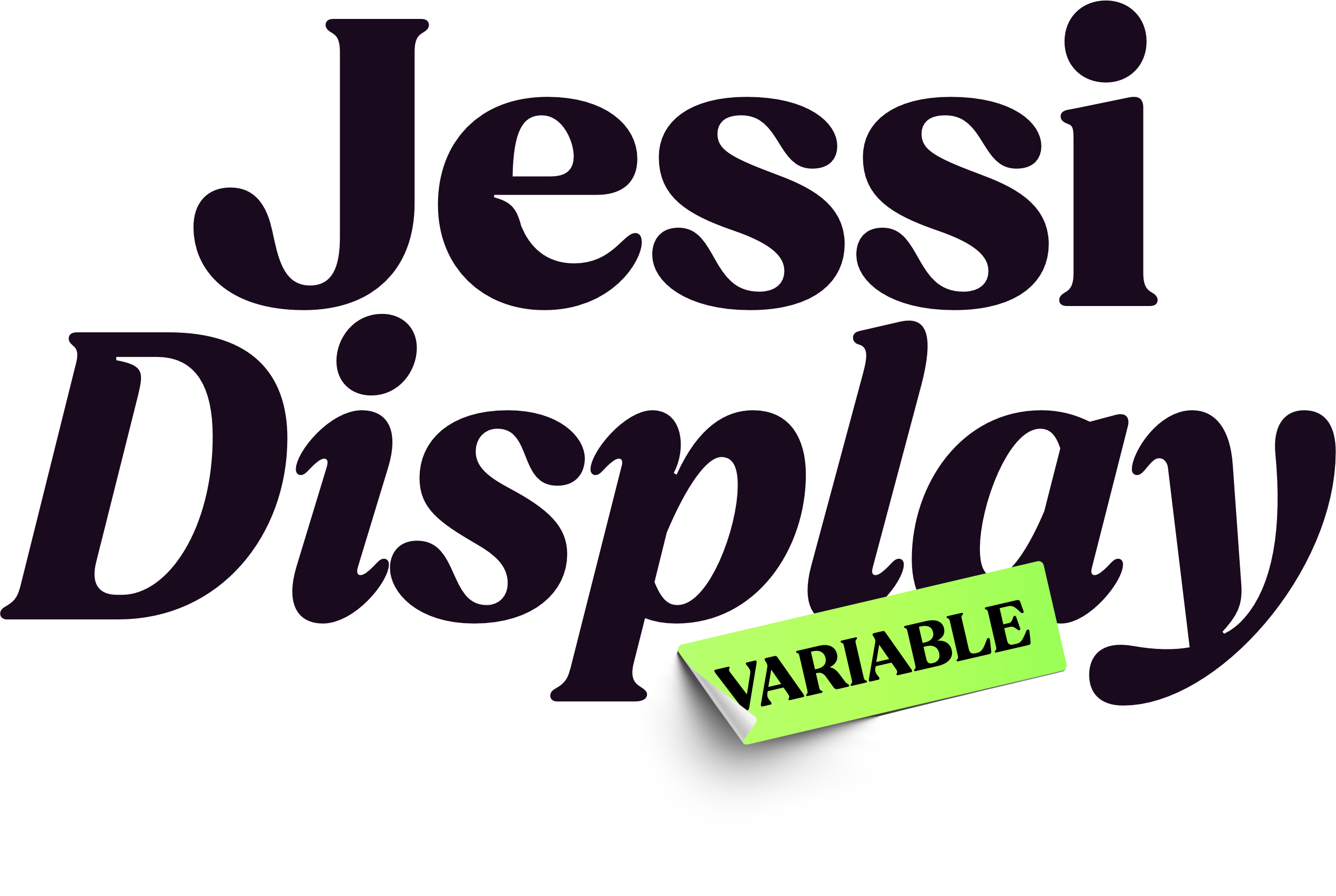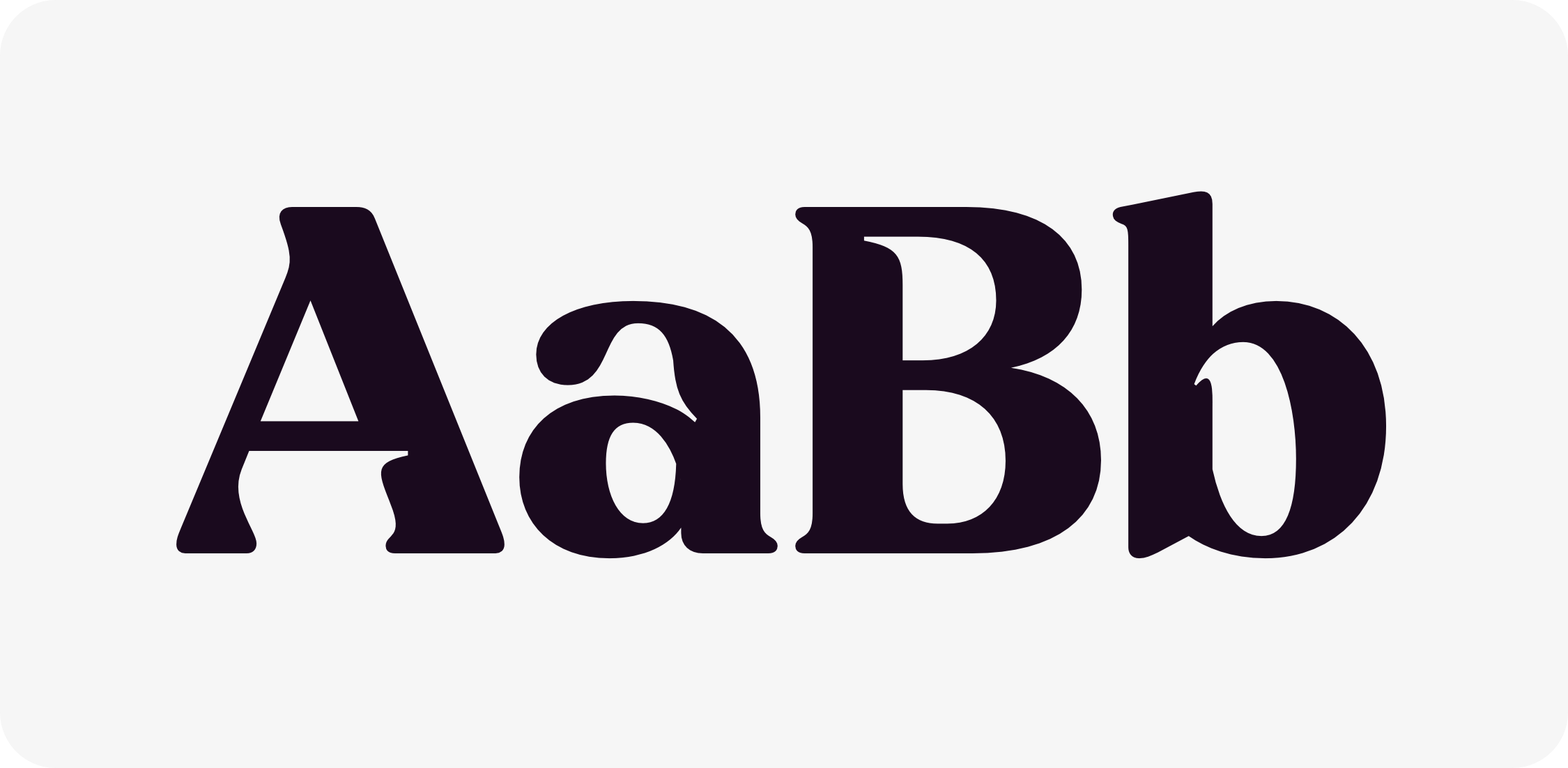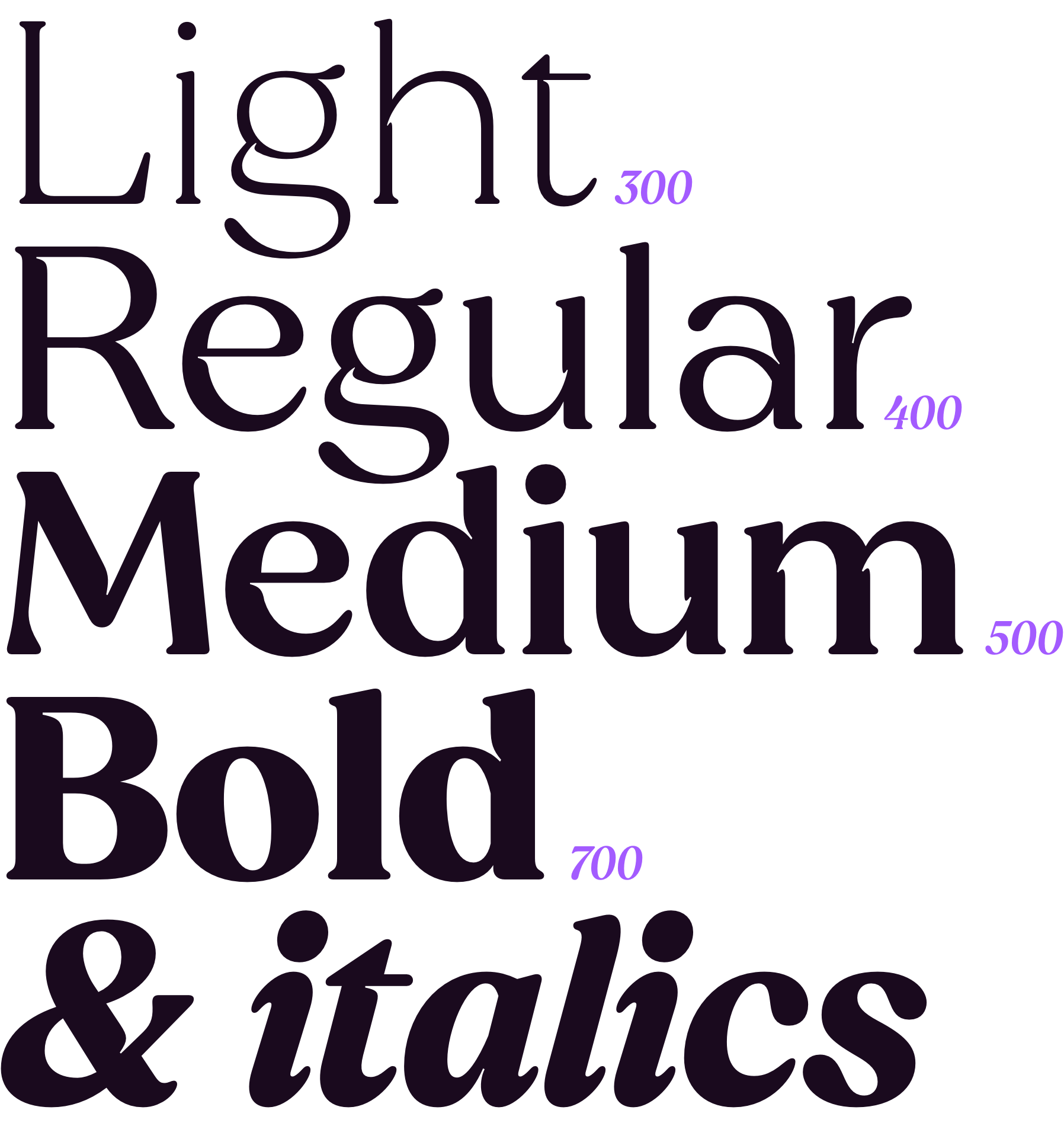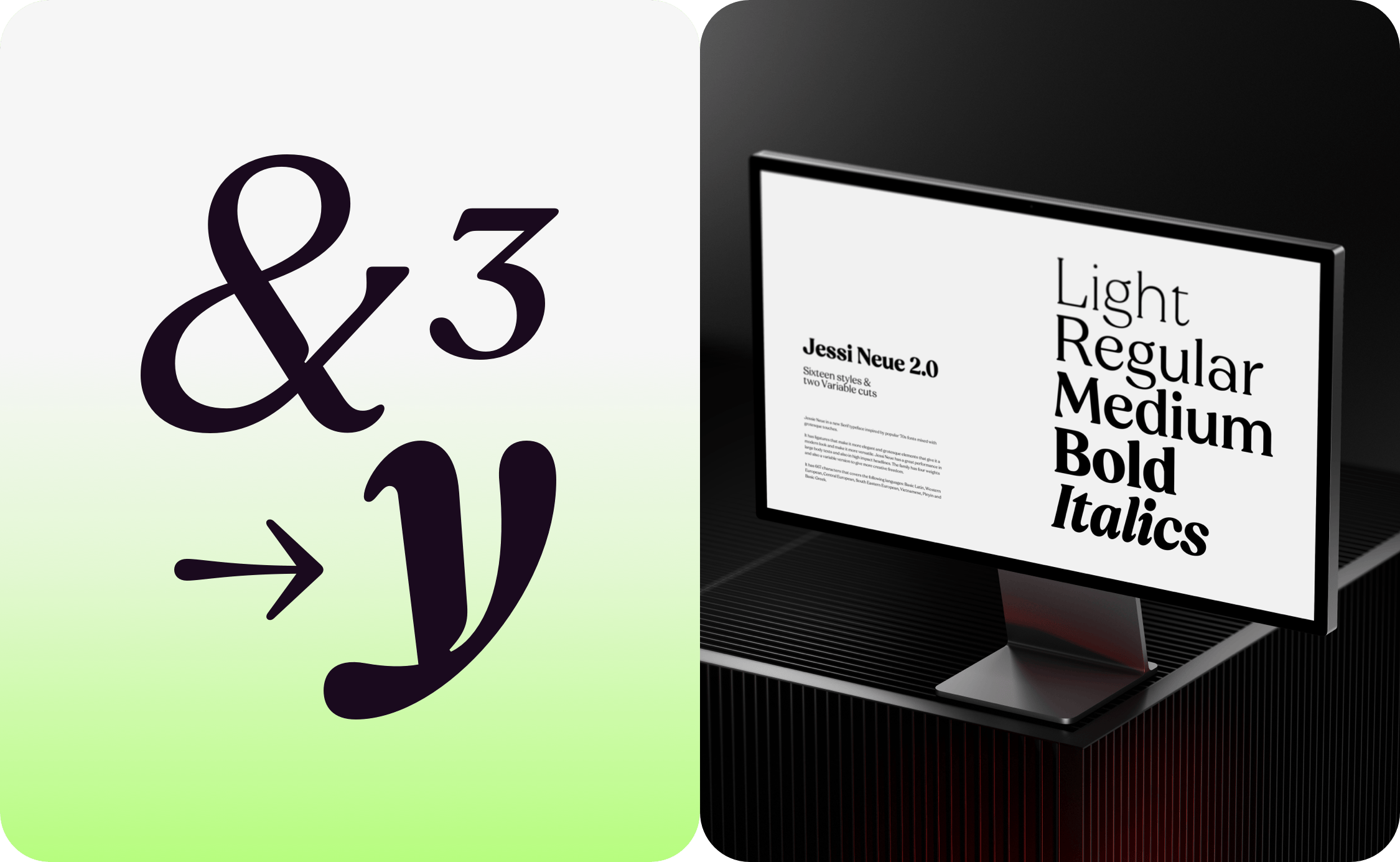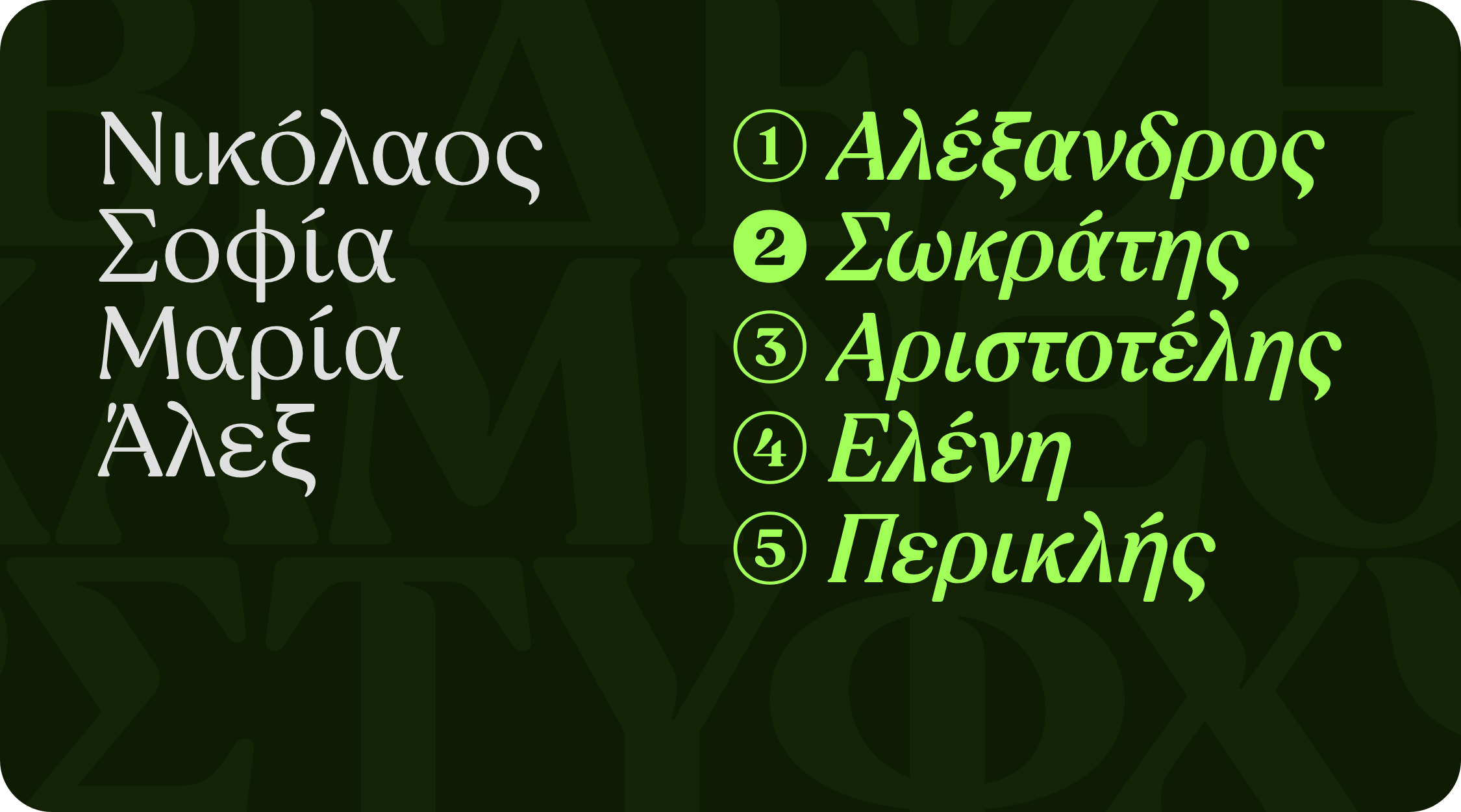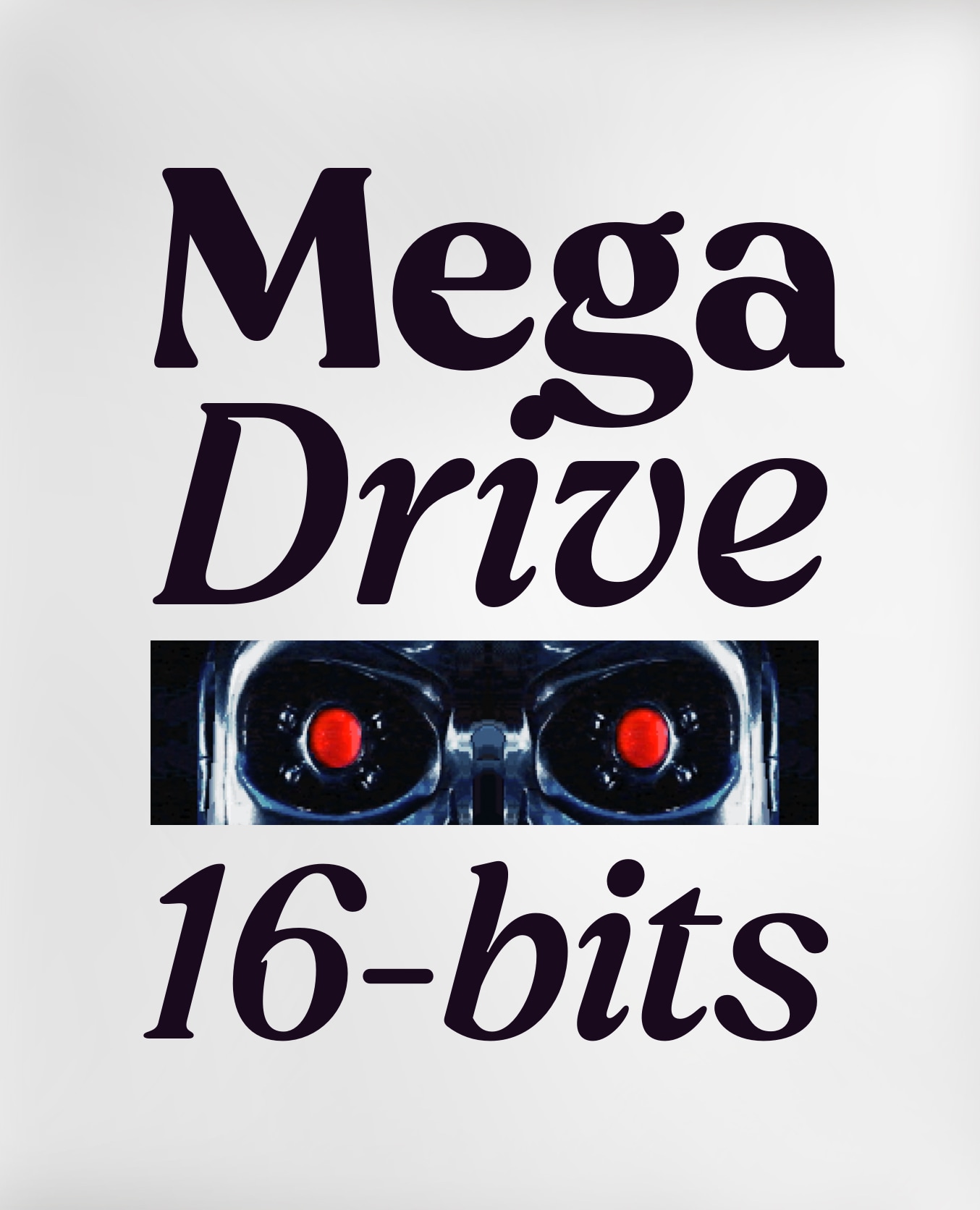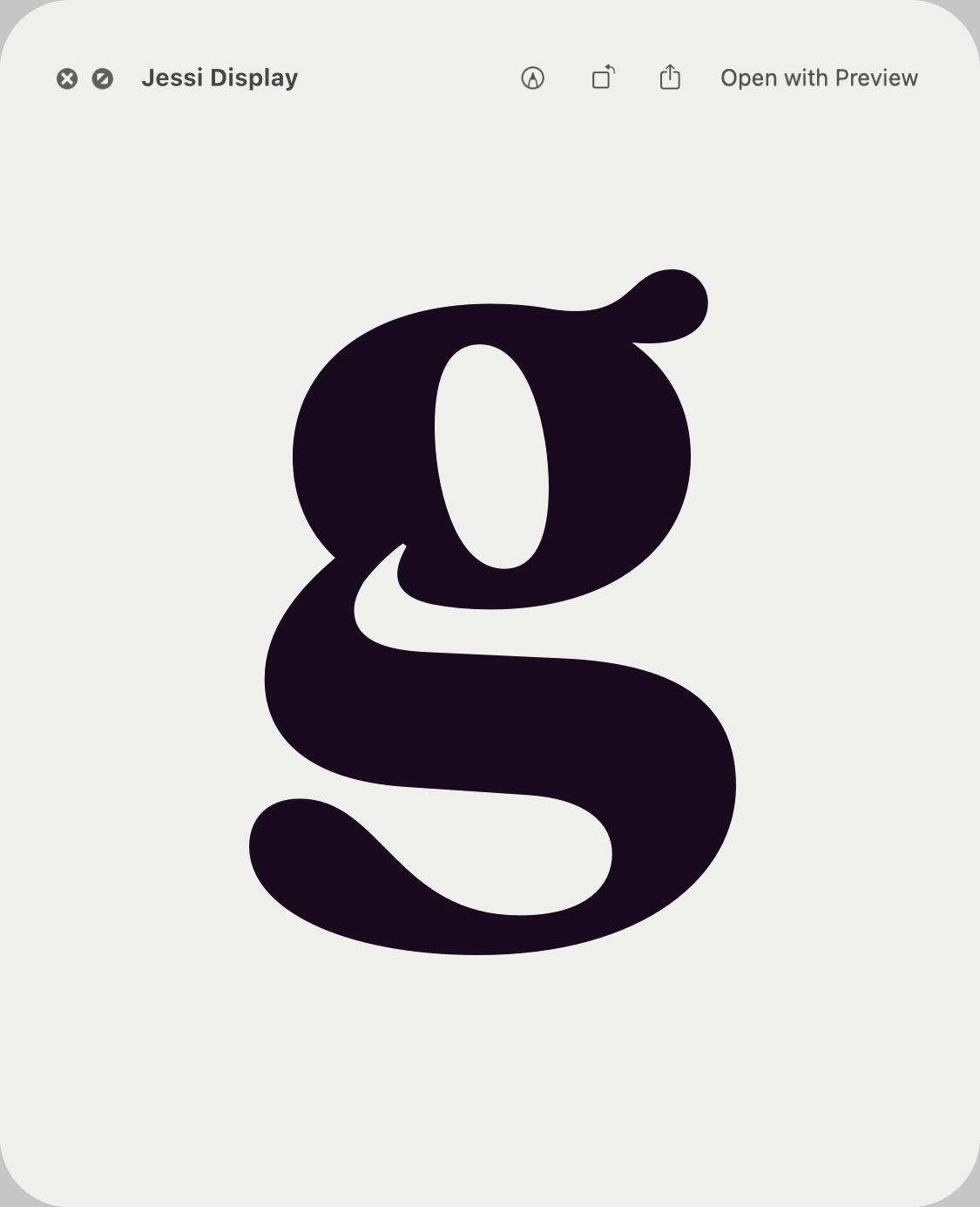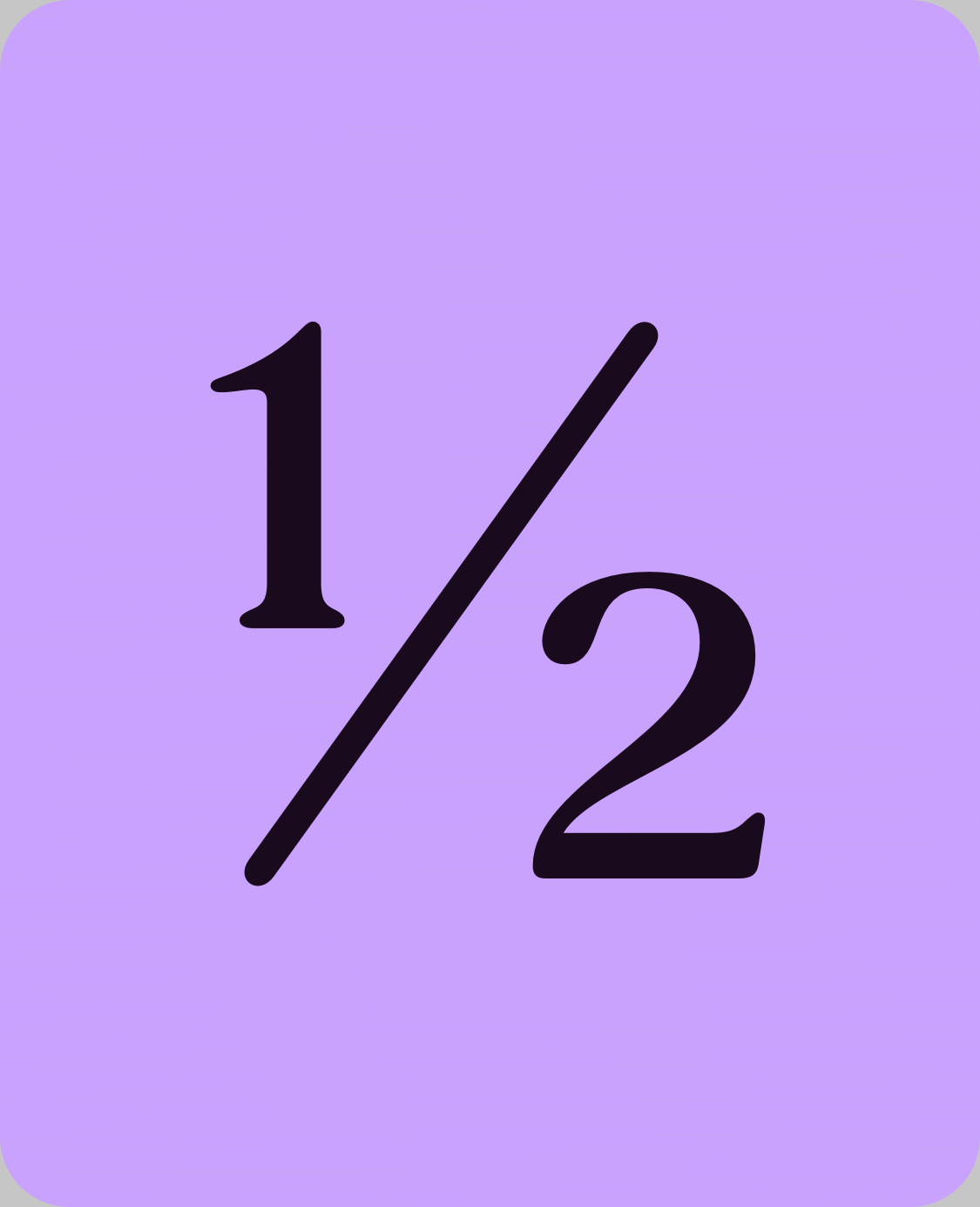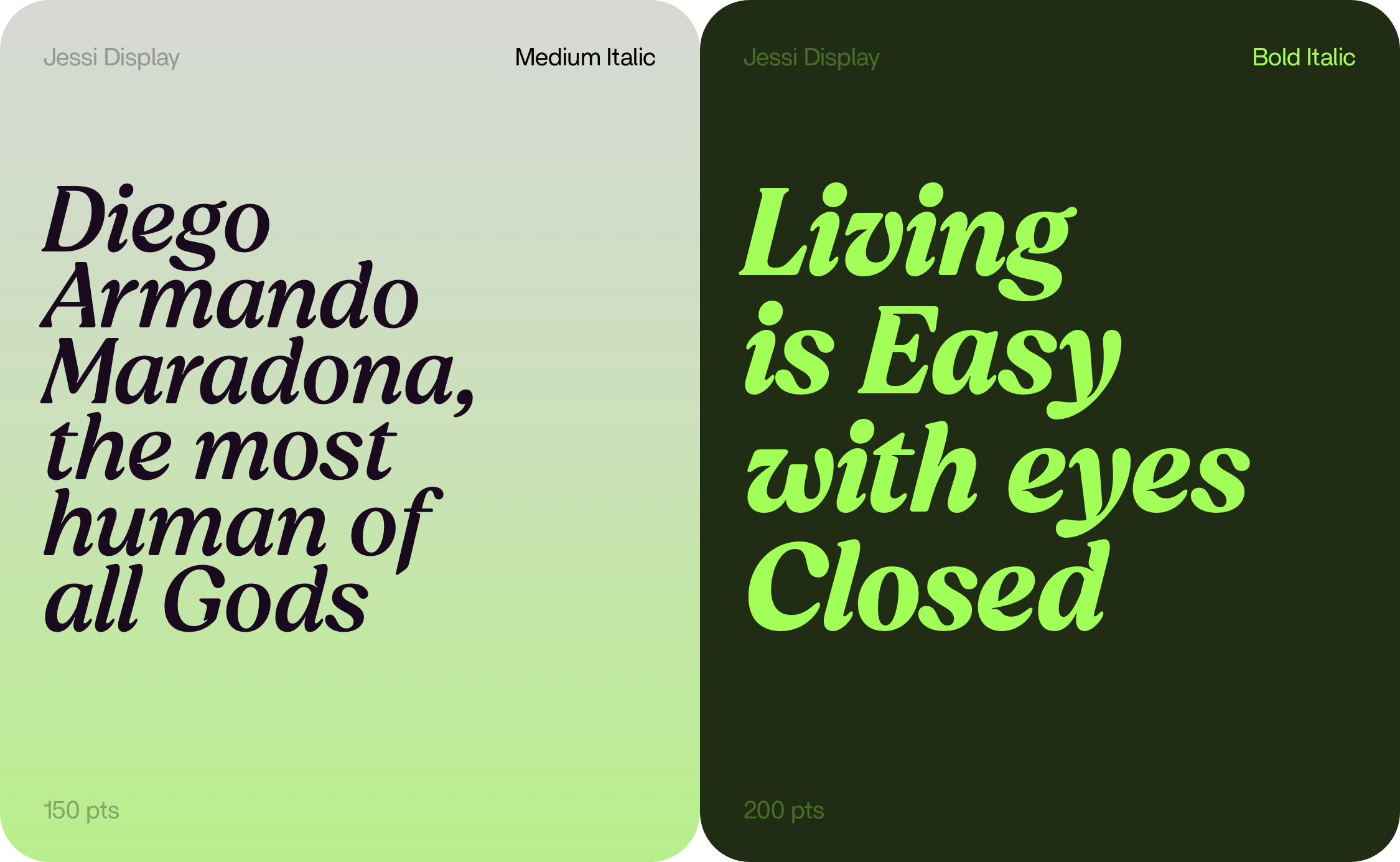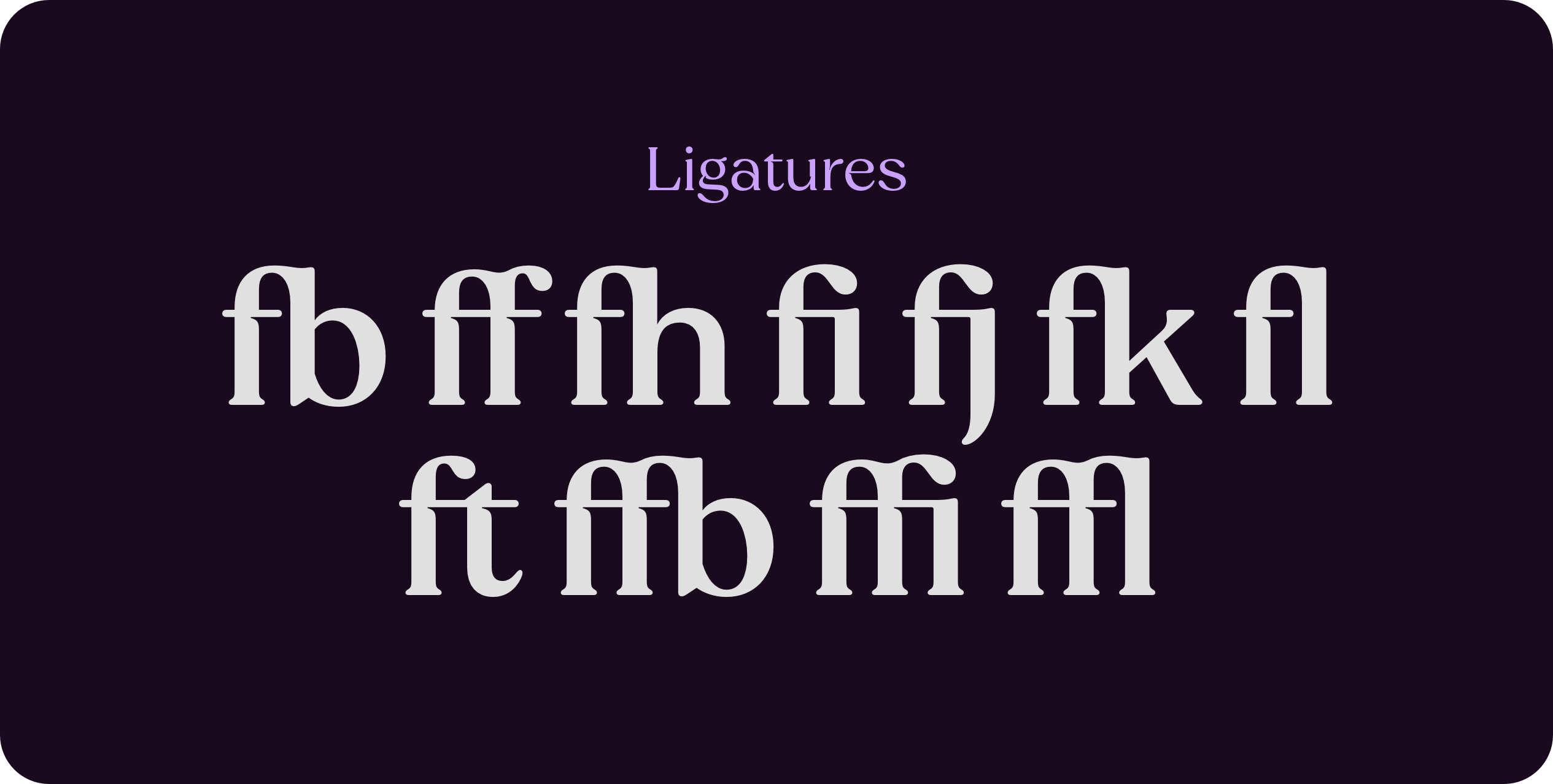
8 styles + 2 Variable fonts
Impactful serif font with decorative ink-traps, charming and contemporary.
Jessi Display is a serif font inspired by 70s typography and designed to meet modern standards.
With editorial design as its foundation, it features decorative inktraps that lend striking impact to large-scale titles.
The family includes four styles, meticulously crafted italics, and two variable cuts. With over 630 glyphs, Jessi Display supports more than 100 languages, including basic Greek, and features ligatures, denominators, numerators, fractions, old-style numerals and circled numerals.